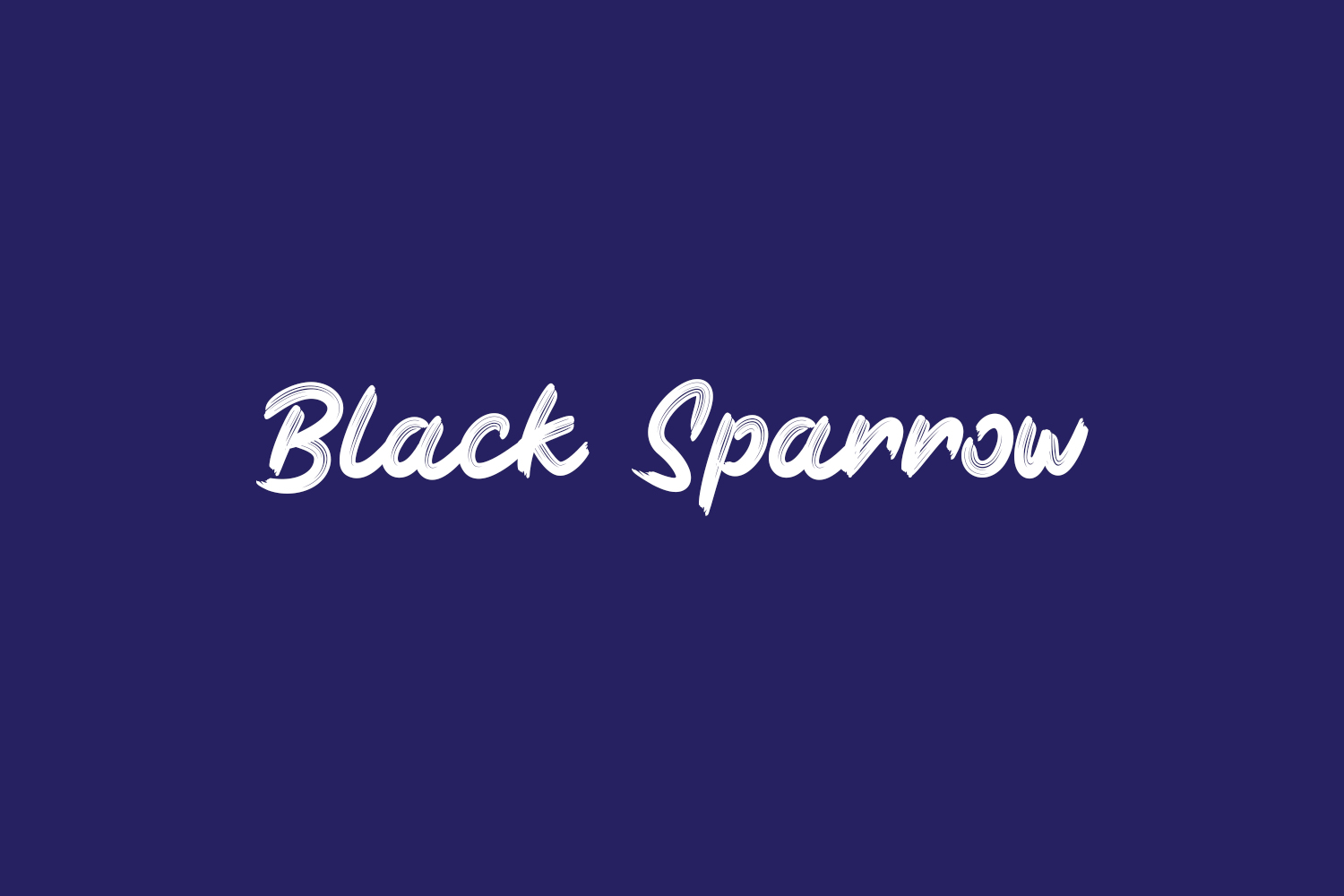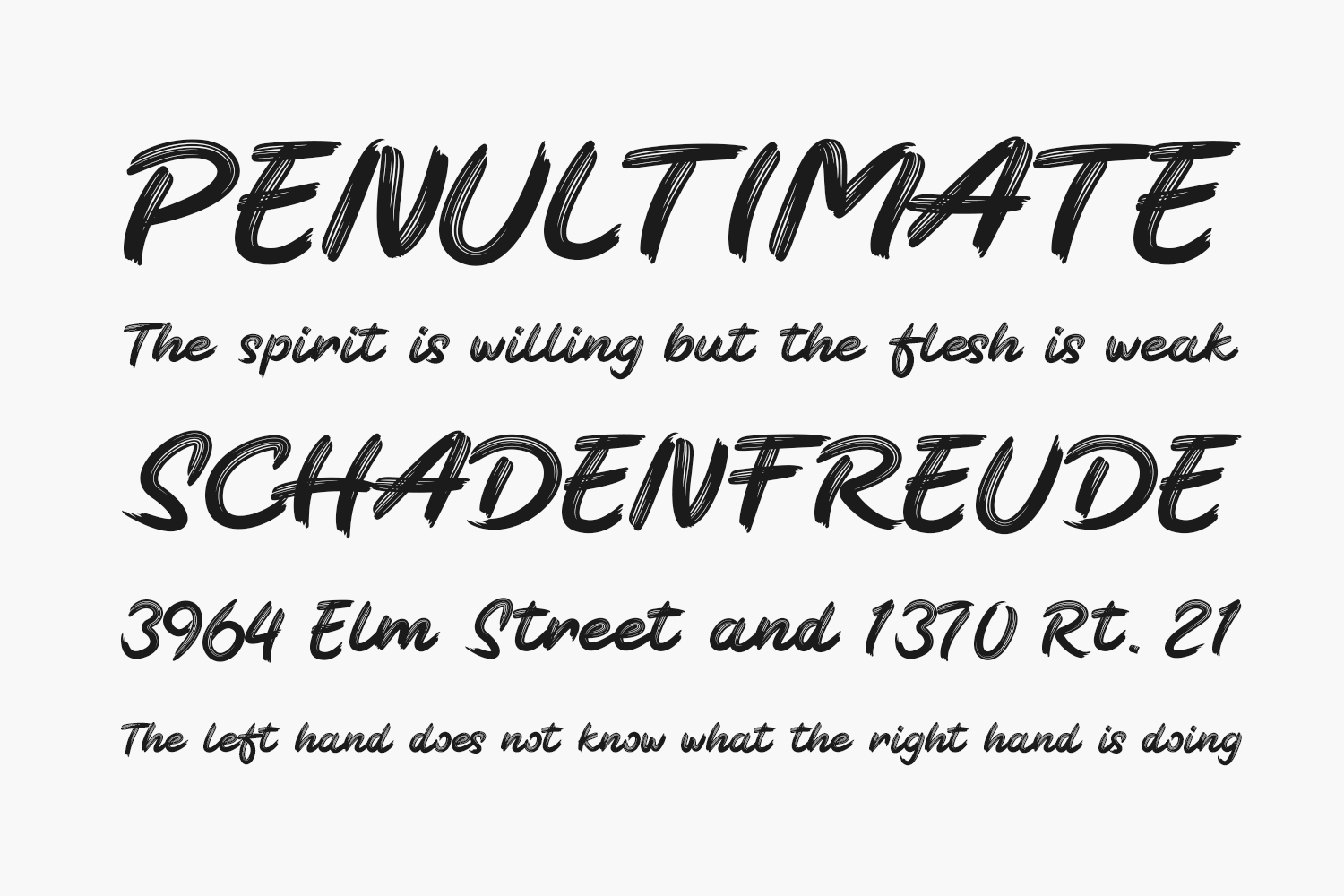
Discover Black Sparrow Free Font, a dynamic freestyle handwritten brush font exuding a street urban vibe and youthful energy. Infused with a sporty, masculine accent, this font is an ideal choice for displays, titles, logos, packaging, crafts, labels, T-shirts, hoodies, tote bags, posters, stickers, quotes, and any advertising requiring vibrant and energetic typography. Black Sparrow Free Font is free for personal use only. Please purchase the full version for commercial use.